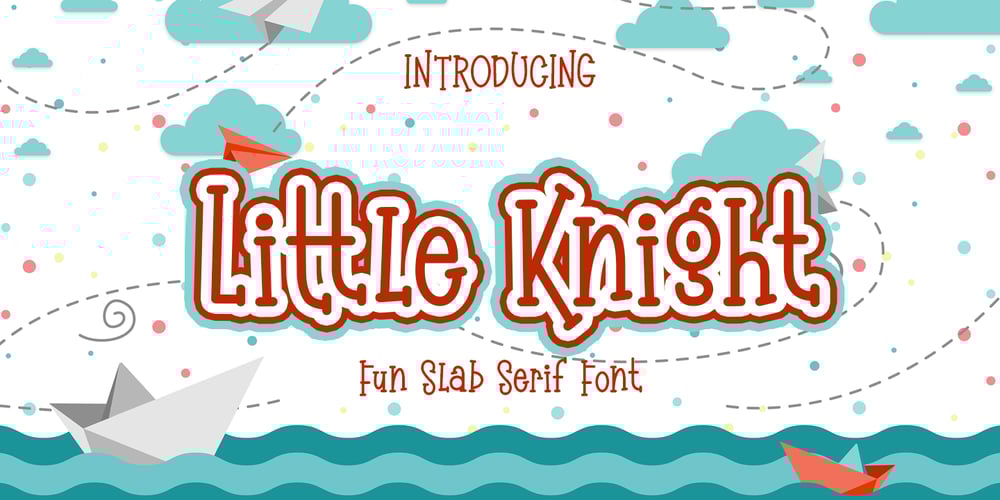
Little Knight Font Family was designed by Abdul Malik Wisnu and published by Almarkha Type. Little Knight contains 1 styles and family package options. Little Knight is a Fun Slab font that will make your designs look unique and fun.It’s perfect for labels, quotes, posters, DIY projects, branding, packaging, greeting cards, websites, photography overlays, signs, window art, scrapbooking, tags and so much more!